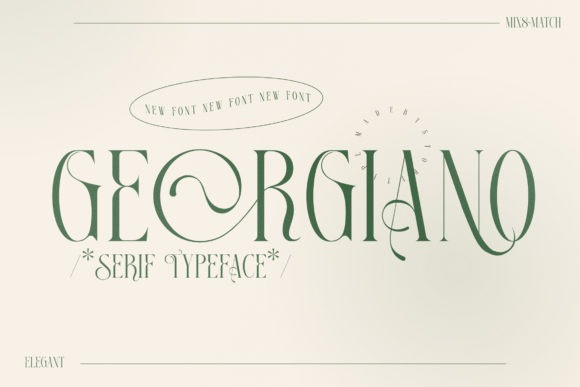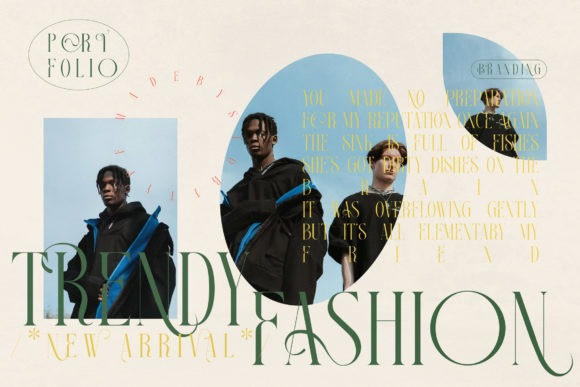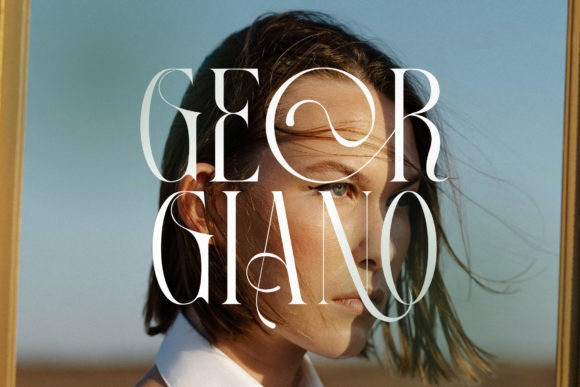
Georgiano Font
Georgiano is a stylish and delicate serif font. It is PUA encoded which means you can access all of the glyphs and swashes with ease. The shape of each character is very clean and contemporary.